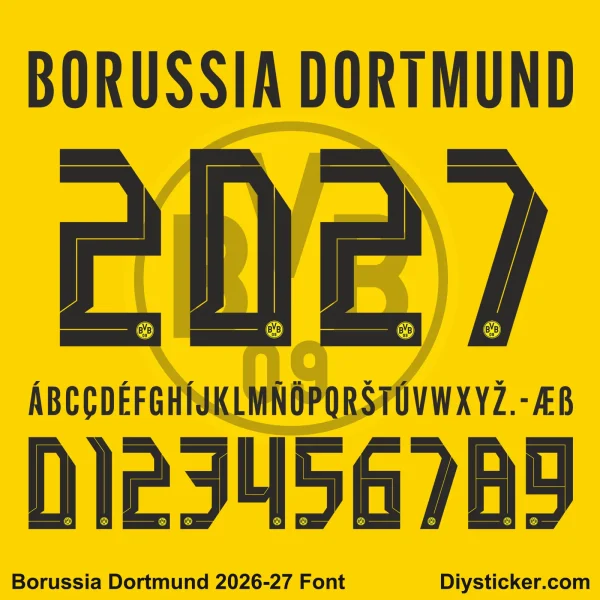
Borussia Dortmund 2026-27 Font – BVB Official Style Numbers & Letters
Borussia Dortmund 2026-27 Kit Font – Professional Jersey Typography
Elevate your design projects with the official-style Borussia Dortmund 2026-27 Font. This typography set is meticulously crafted to match the aesthetic of the BVB kits for the upcoming 2026/27 Bundesliga and European campaigns. Whether you are a jersey collector, a DIY enthusiast using a Cricut or silhouette machine, or a professional graphic designer, this font pack provides everything you need.
Multi-Kit Compatibility: The design remains consistent across Home, Away, and Third kits—simply adjust the color to match the jersey!
Full Character Set: Includes all uppercase letters (A-Z), special characters (like Ö and Š), and the iconic numbers (0-9).
Authentic Details: Includes the BVB 09 crest integrated into the base of each number for maximum authenticity.